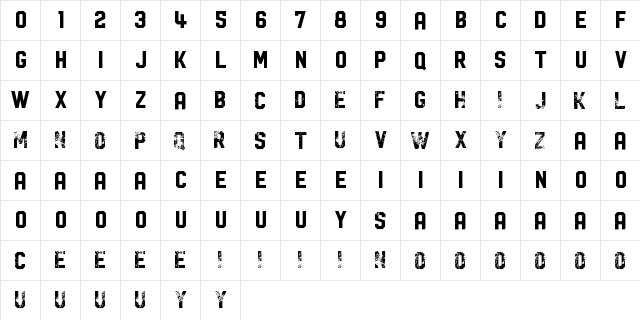
Vtks Propaganda Regular
Design Context for Vtks Propaganda Typeface
Vtks Propaganda is a composed and adaptable typeface that performs quietly and consistently across a wide range of design contexts.